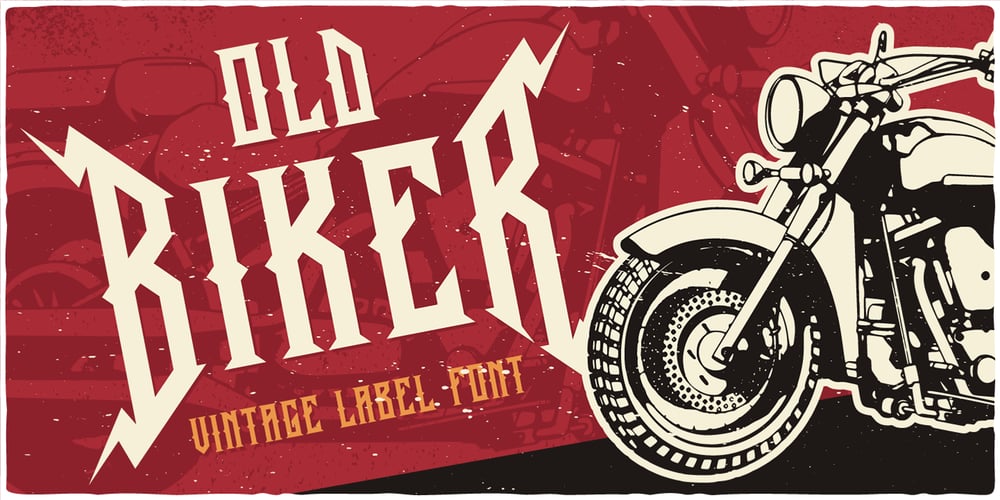
Old Biker Font Family was designed by Oleg Voznyy and published by Vozzy. Old Biker contains 2 styles and family package options. Introducing a vintage label font named Old Biker. This strong typeface is perfect for lettering with alternates for capital letters (for first and last letter for example) and multilingual support.